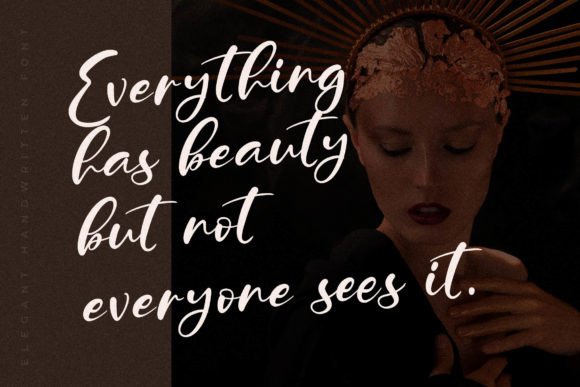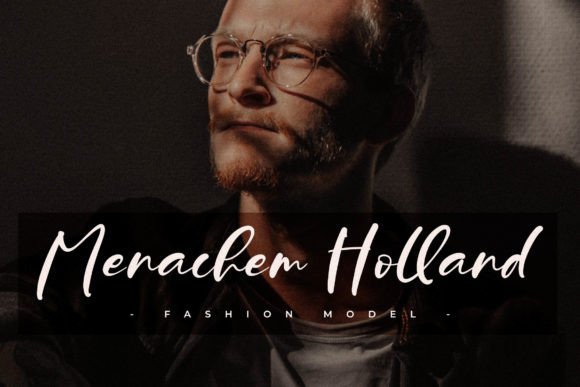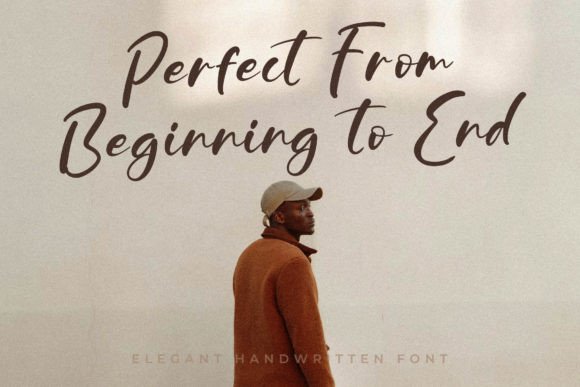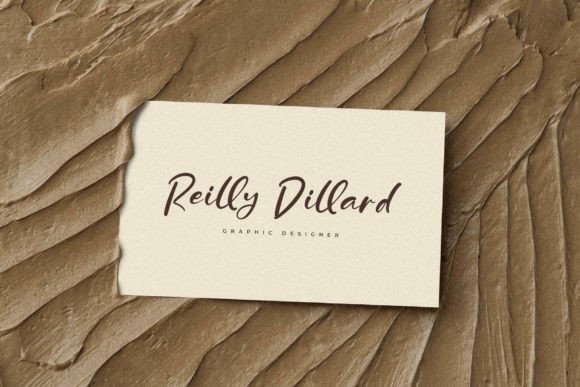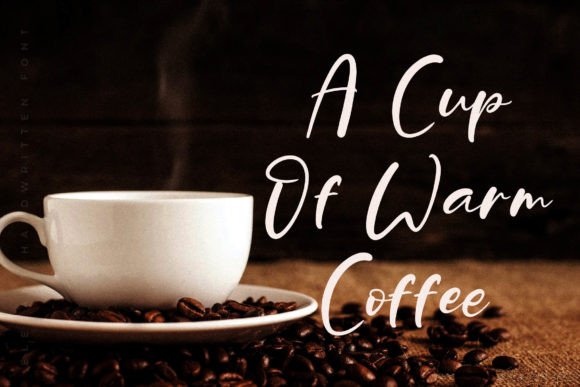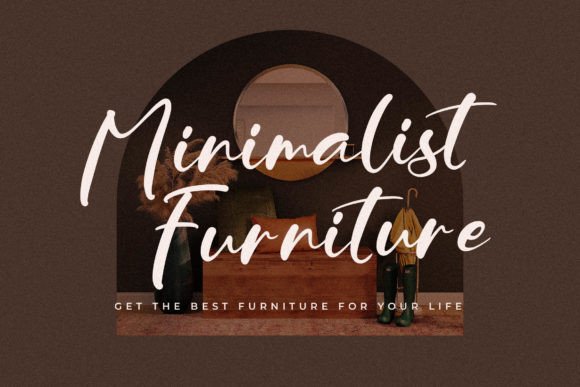
Introduction to Ruthoden Font
Do you remember the moment when a beautiful handwritten font transformed your design project from ordinary to extraordinary? For designers, finding the perfect font can be a game-changer. It’s the difference between a great idea and a truly remarkable creation. Today, we’re excited to introduce you to the Ruthoden Font, a stunning elegant handwritten font that’s sure to elevate your creative projects to new heights.
Whether you’re working on a logo, branding project, or product packaging, the Ruthoden Font is the perfect design resource to add a touch of sophistication and elegance. With its high-quality design and transparent background, this font is perfect for a wide range of applications, from homeware designs to t-shirts, book covers, and greeting cards.
Key Features of Ruthoden Font
- High-quality, elegant script font designed for creative projects, ideal for wedding invitations, quotes, and other romantic designs.
- Includes 6 styles: Regular, Italic, Bold, Bold Italic, Shadow, and Outline, to cater to various design needs.
- Supports Latin and Cyrillic languages, making it a versatile font for international projects.
Honest Review: Ruthoden Font
I recently stumbled upon the Ruthoden Font, a free download that’s quickly become a staple in my design arsenal. The font’s unique aesthetic makes it perfect for creative projects that require a touch of sophistication.
- ✨ The font’s high-quality design ensures that it looks great on both digital and print materials.
- ✨ The transparent background makes it easy to layer and manipulate the font in design software.
- ✨ The font’s versatility allows it to be used for a wide range of design projects, from business cards to websites.
- ⚠️ The font’s limited character set can be restrictive for projects that require a wide range of characters.
- ⚠️ The font’s style may not be suitable for all design projects, particularly those that require a more playful or casual tone.
Overall, I’m impressed with the Ruthoden Font’s design quality and versatility. While it may have some limitations, it’s definitely a valuable resource for designers looking for a high-quality font for their creative projects.
Getting the Most Out of Ruthoden Font
To get the most out of Ruthoden Font, use it on a transparent background to create a high-quality design resource. This will allow you to easily overlay the font on top of other design elements.
The Ruthoden Font is ideal for use in creative projects, such as logos, business cards, and brochures. Its high-quality design and transparent background make it a versatile and effective design resource.